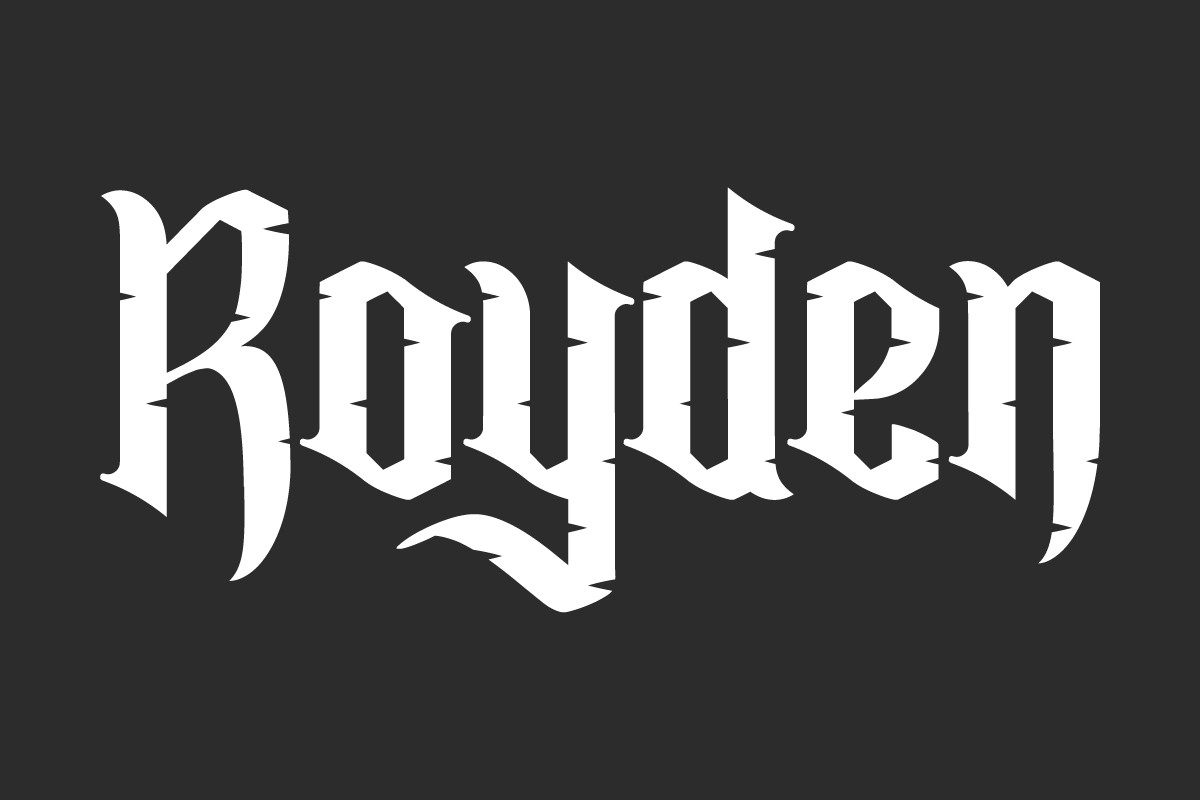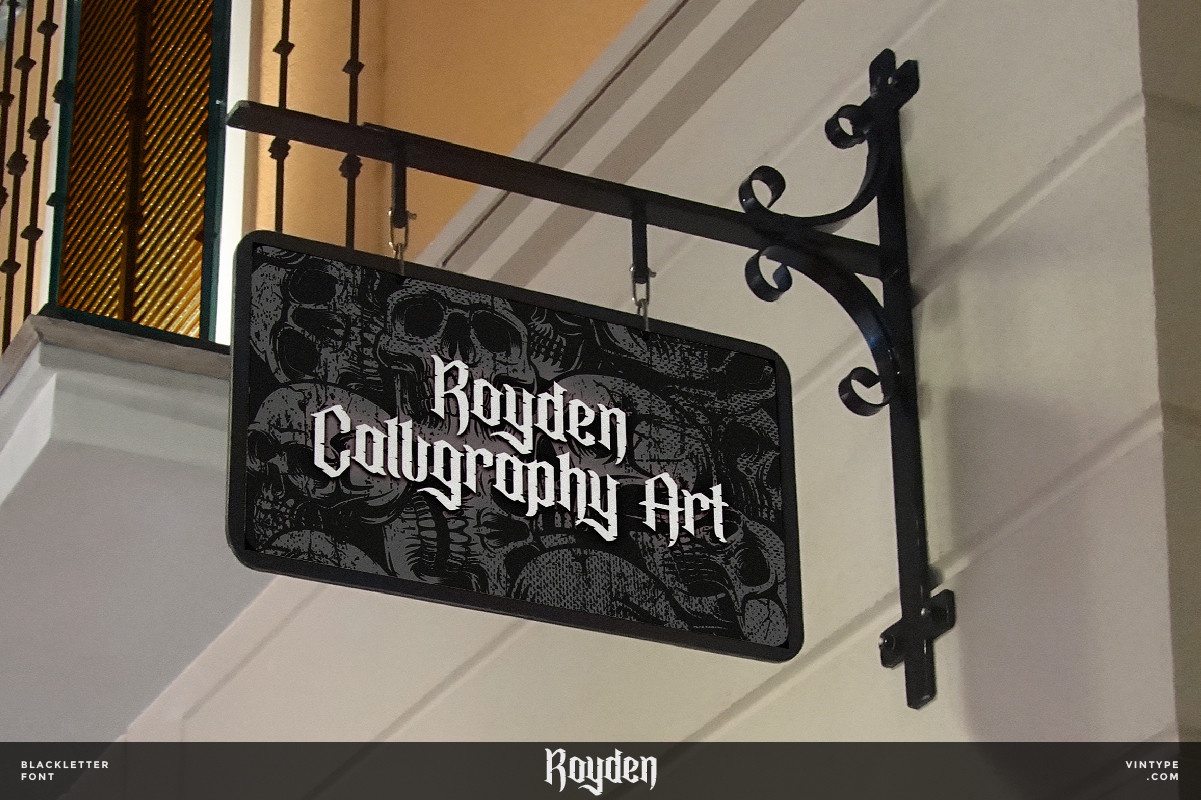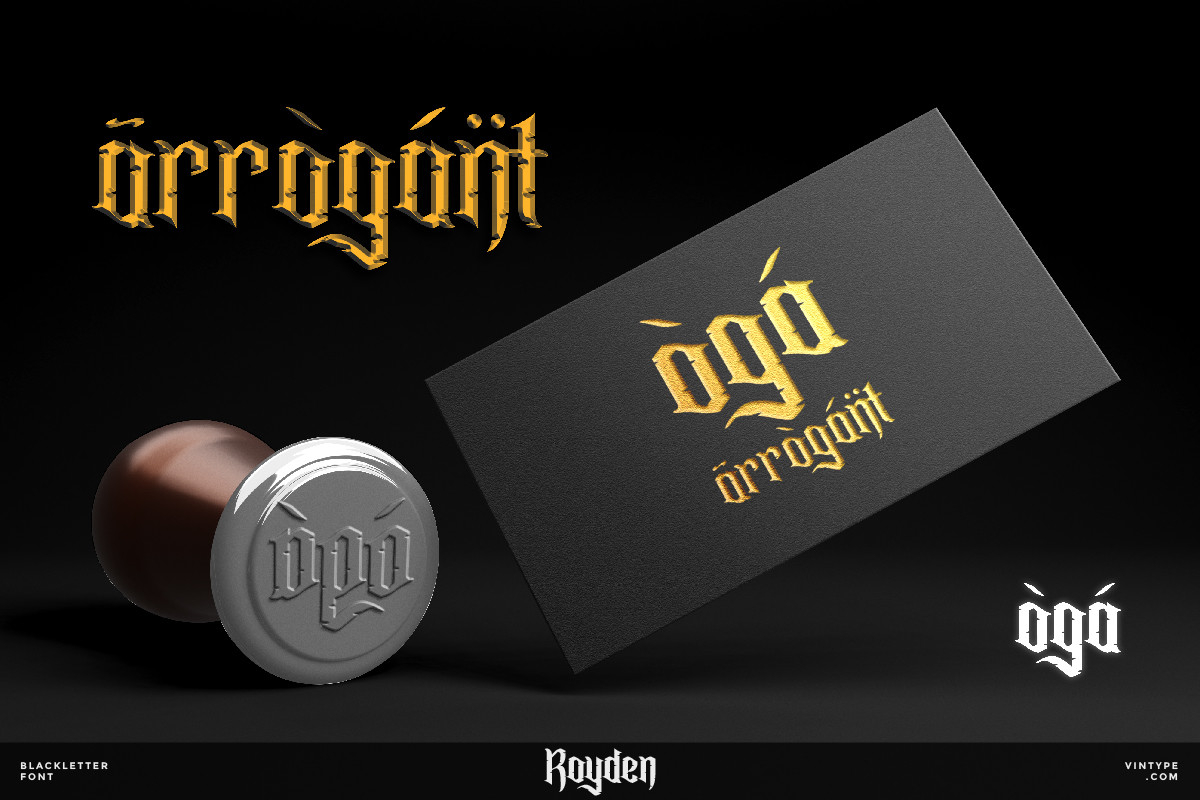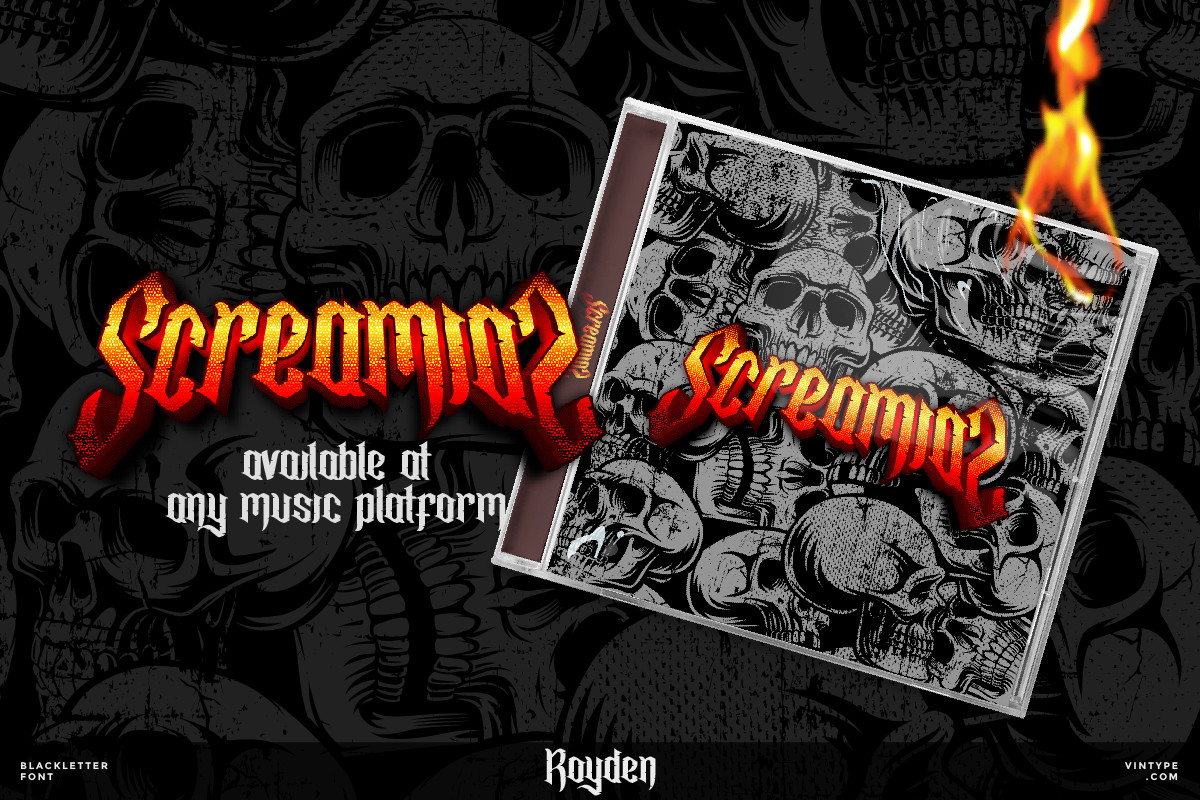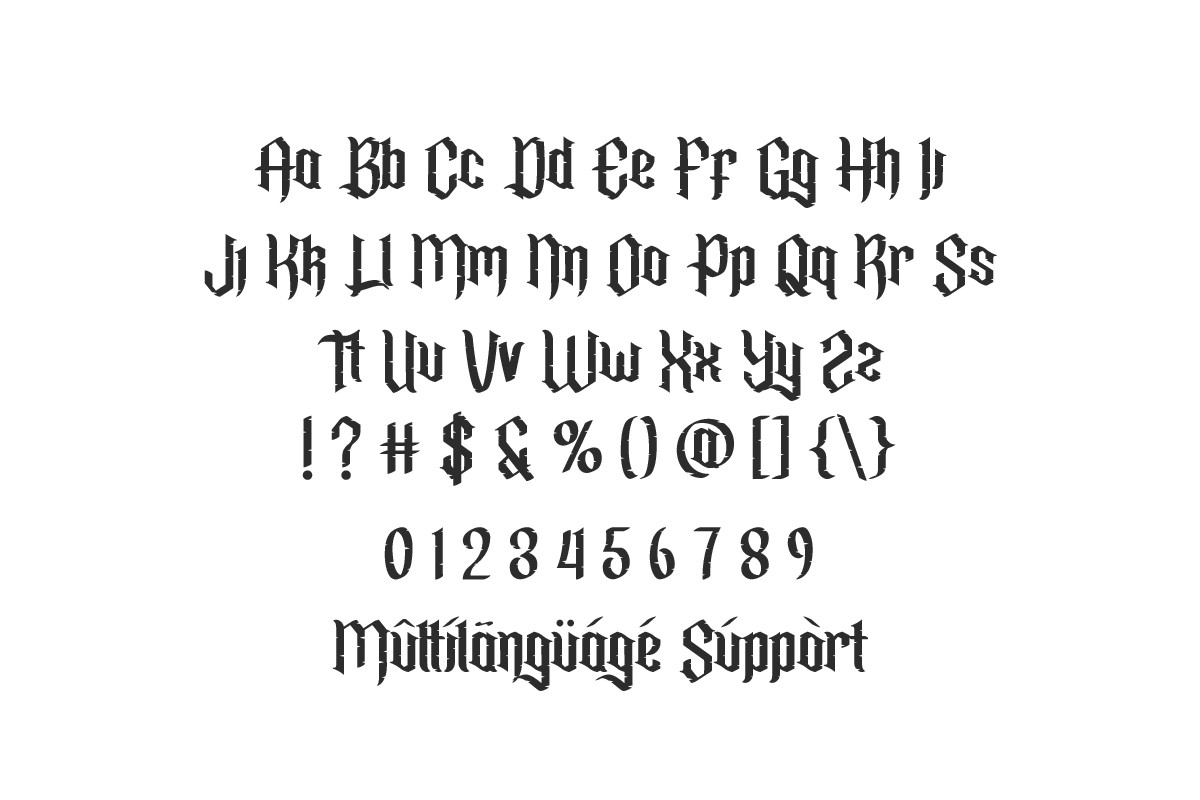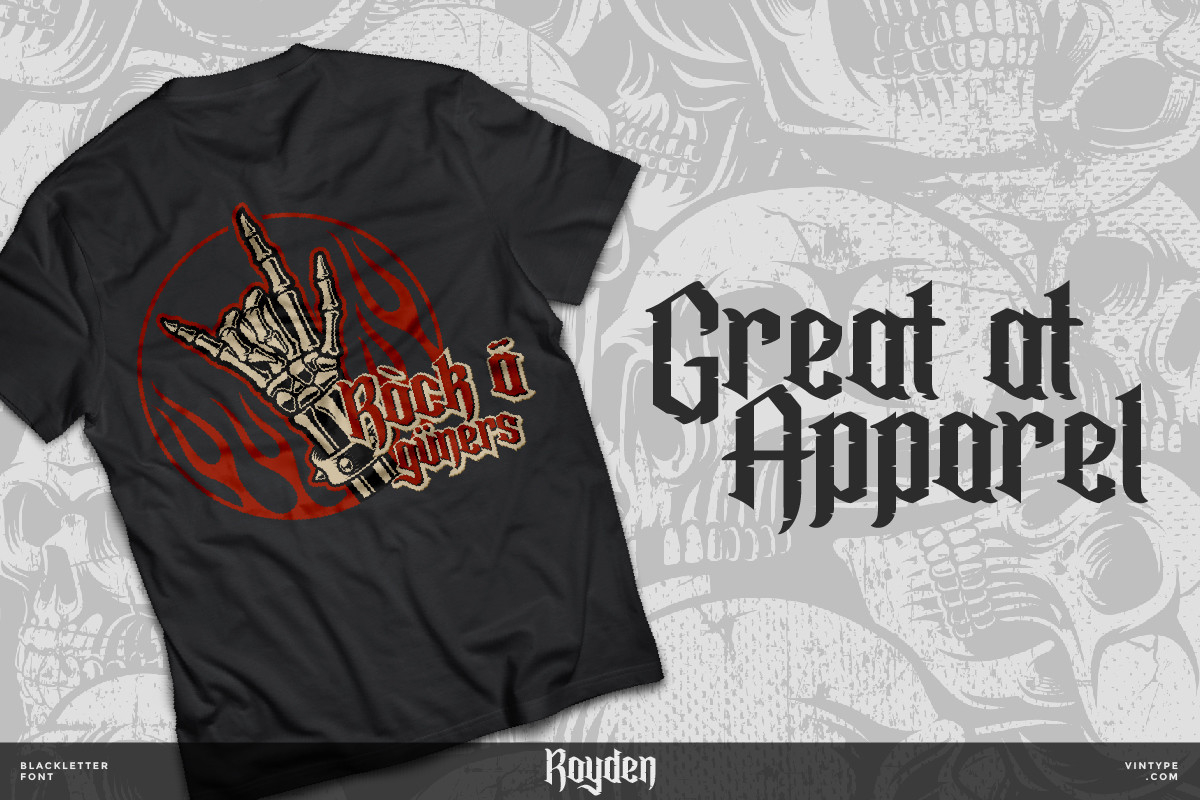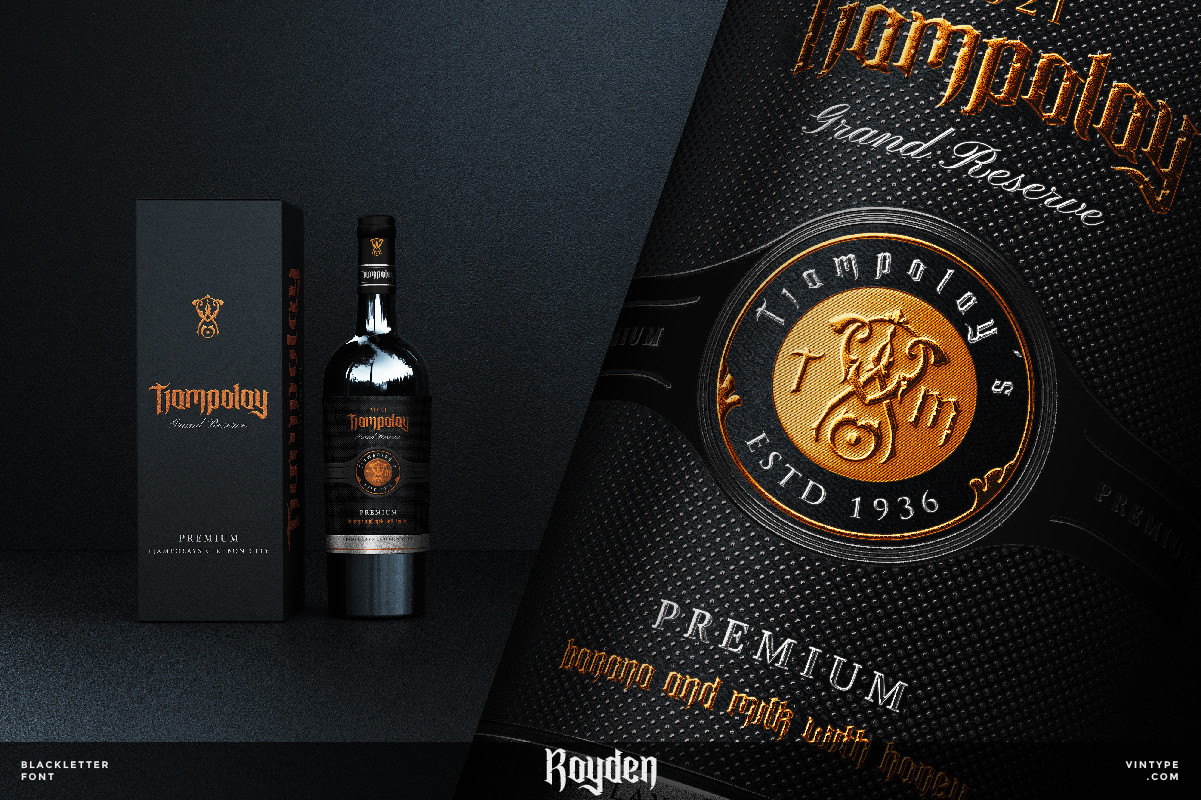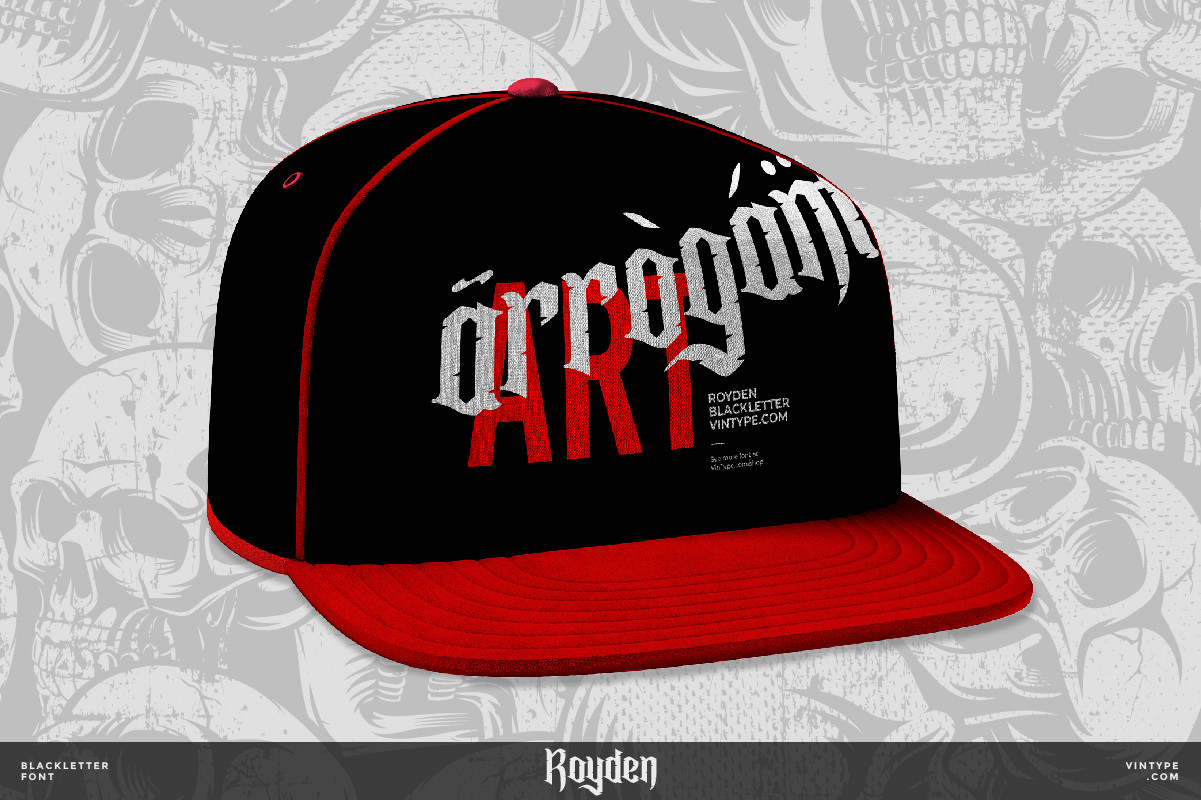
Royden Font
About Royden Font
Royden is a rough textured, bold and cool blackletter font. Whether you’re looking for fonts for Instagram or calligraphy scripts for DIY projects, this font will turn any creative idea into a true piece of art!